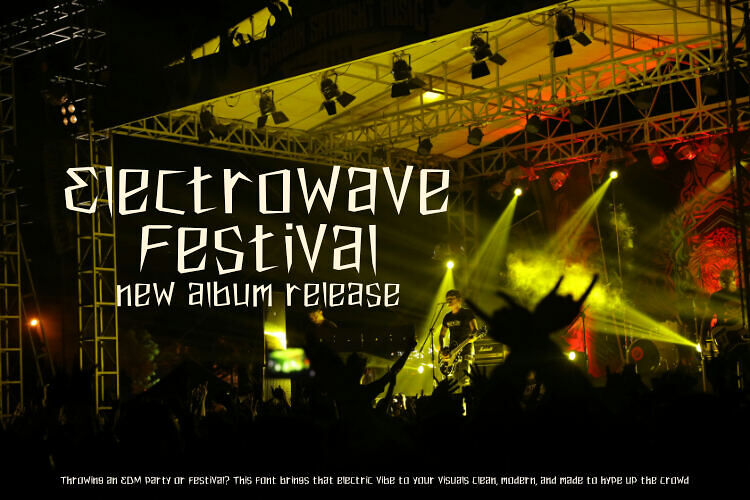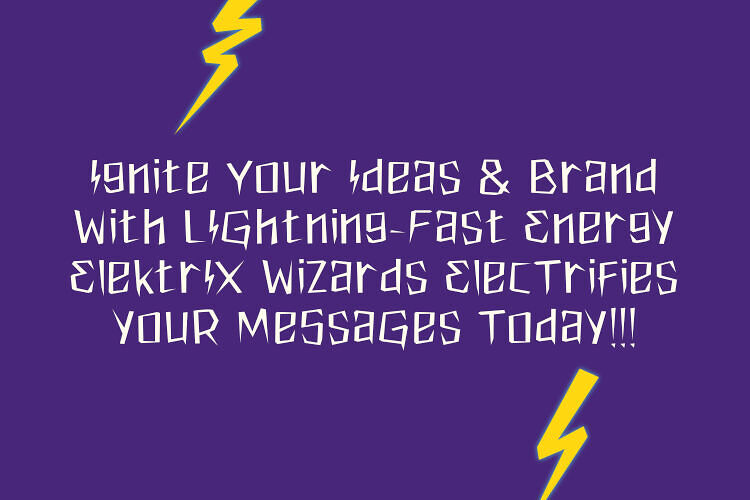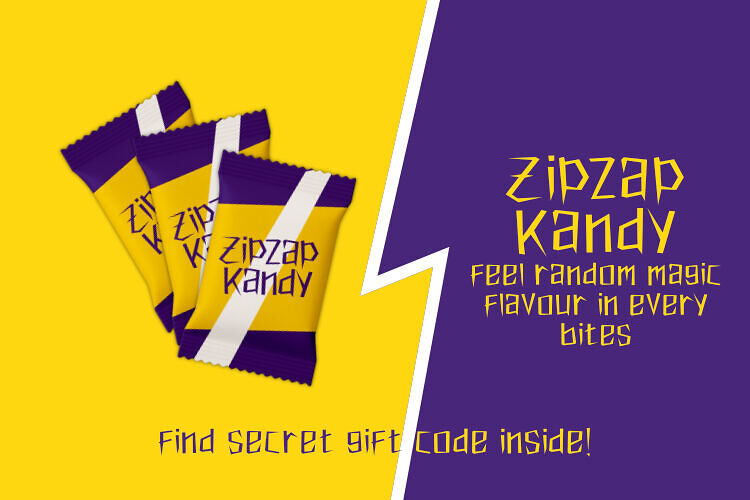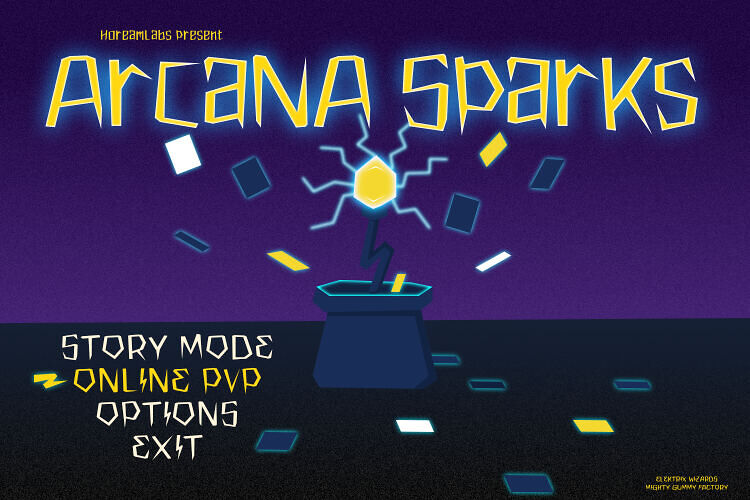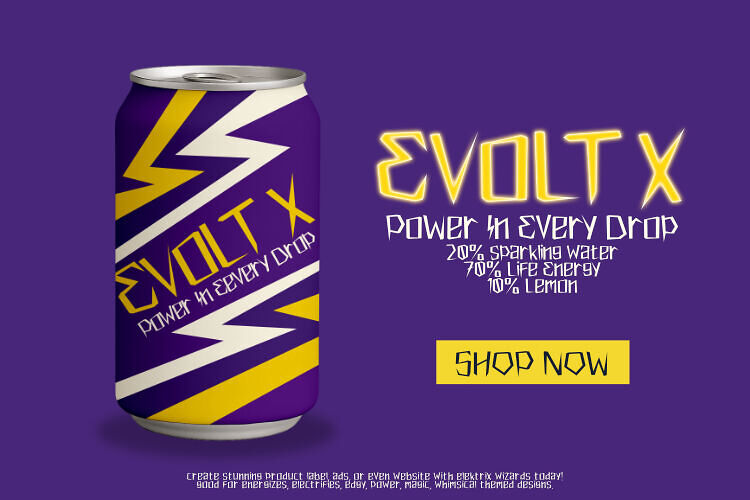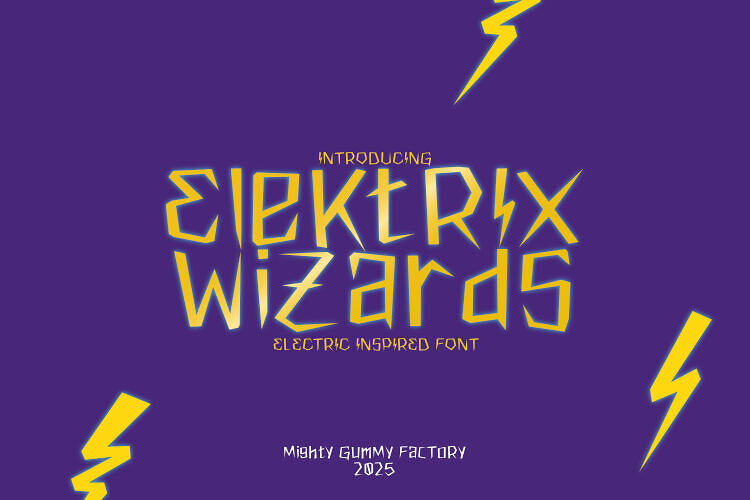
MGF Elektrix Wizards Font
ELEKTRIX WIZARDS is an electric-inspired display font designed for high-energy projects from gaming to music posters, Twitch overlays, and edgy branding.
Featuring bold, angular lightning-bolt letterforms, it’s perfect for e-sports logos, sci-fi art, and youth-centric designs that demand attention. If your project needs energy, voltage, and impact this font brings the power.